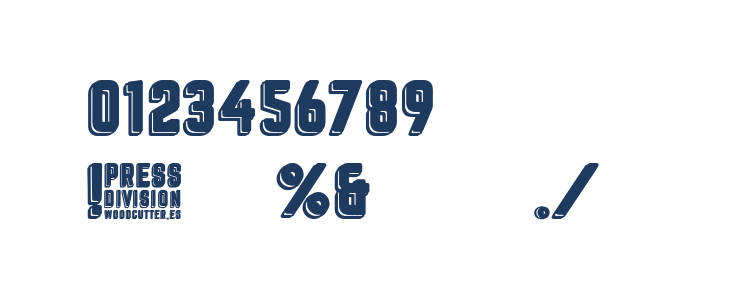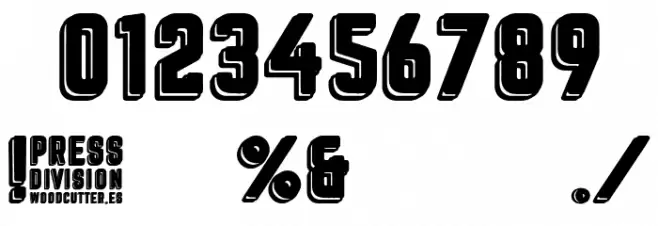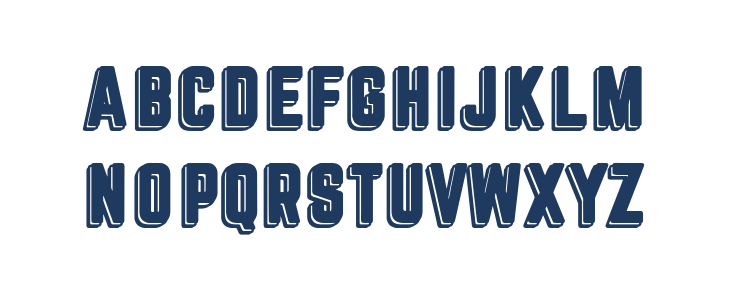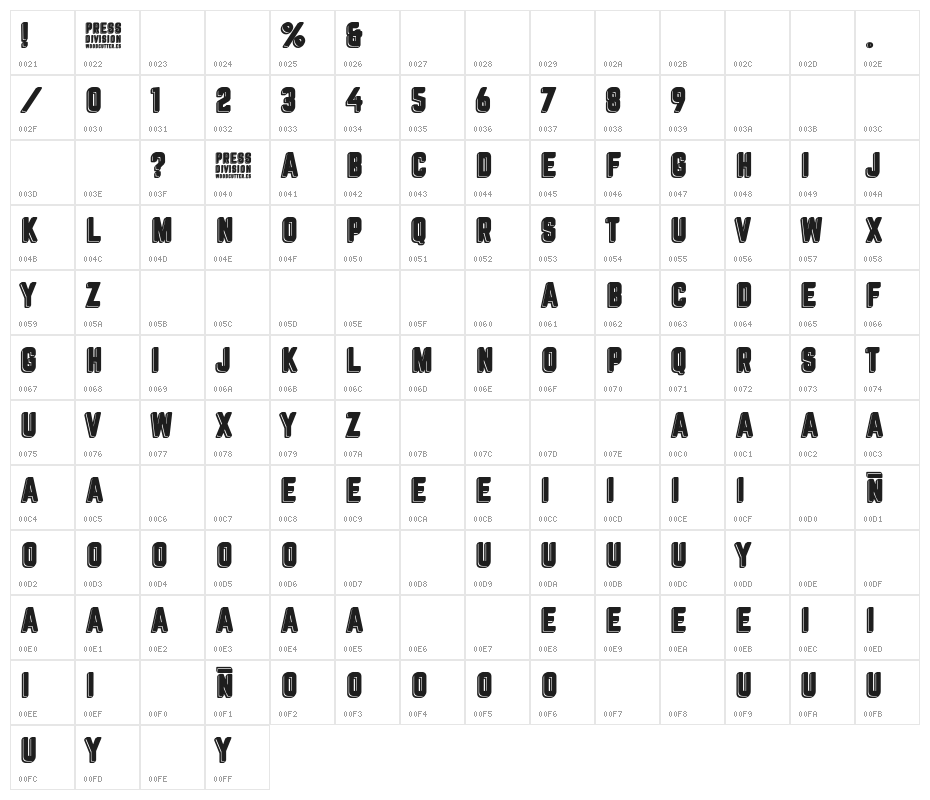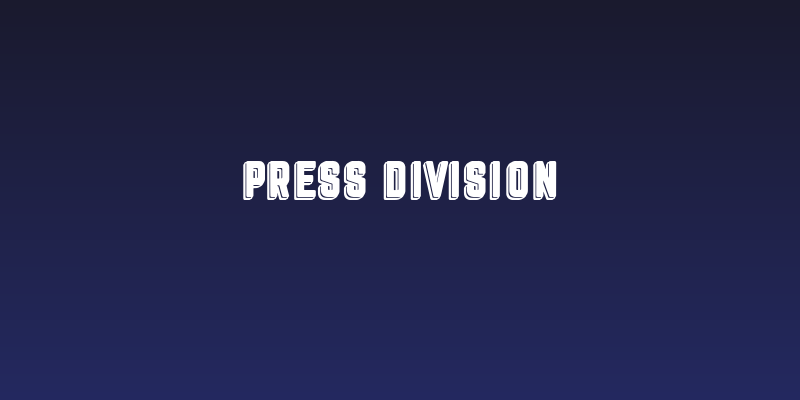
press division Font
press division Description
A bold, uppercase display typeface with a strong shadow effect, geometric letterforms, and high visual impact. The characters are blocky and sans-serif, with consistent stroke thickness and a distinct 3D appearance.
| Overall Style | Decorative, Modern, Industrial |
| Use Case | Headlines, Logos, Posters, Signage |
| Proposed Projects | Posters, sports branding, event flyers, signage, headlines, logos. |